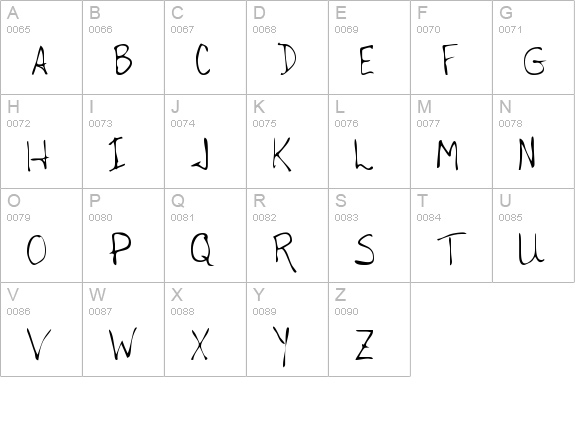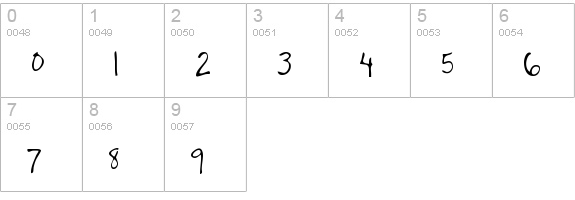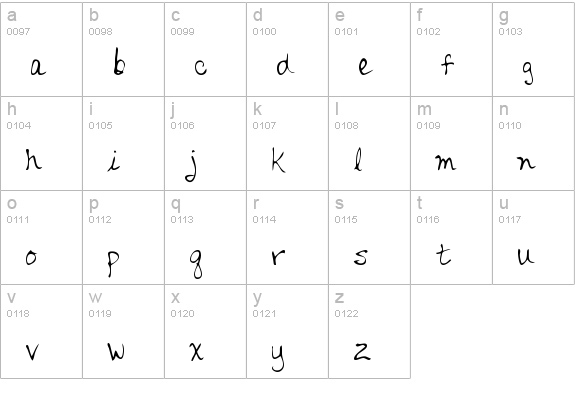
HenrysHand Regular Font Details
HenrysHand Regular is the standard, neutral variant in the HenrysHand typeface family \xE2\x80\x94 well suited to general body text, paragraphs, and standard typographic work.
Henry'sHand Regular font is a charming and versatile typeface that combines a handwritten style with a modern twist. Its casual yet legible letterforms make it perfect for a wide range of design projects, from invitations to branding to social media graphics. With its friendly and approachable look, Henry'sHand Regular adds a personal touch to any text. Best of all, Henry'sHand Regular is available for free download at FontsMarket.com. This means you can easily access this delightful font to enhance your creative work without any cost. Whether you're a designer, blogger, or hobbyist, Henry'sHand Regular is a valuable addition to your font collection. Download it today and start adding a touch of handmade charm to your projects!